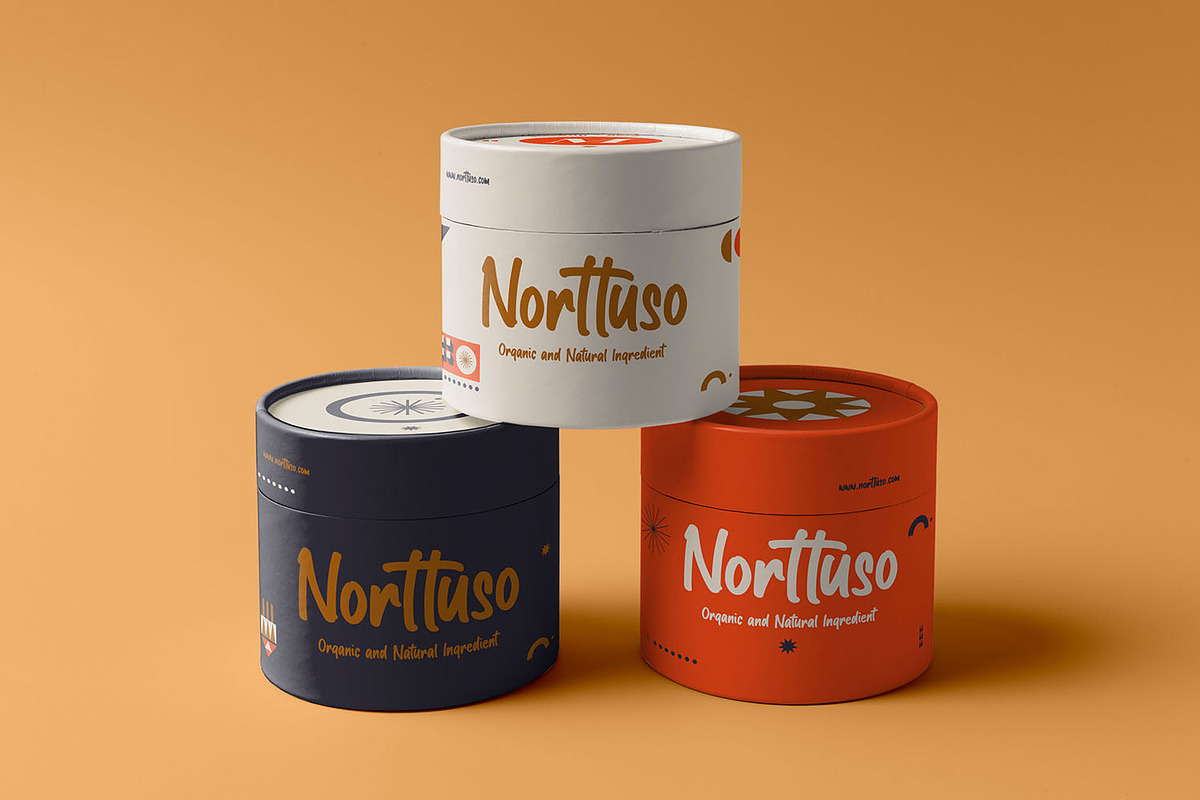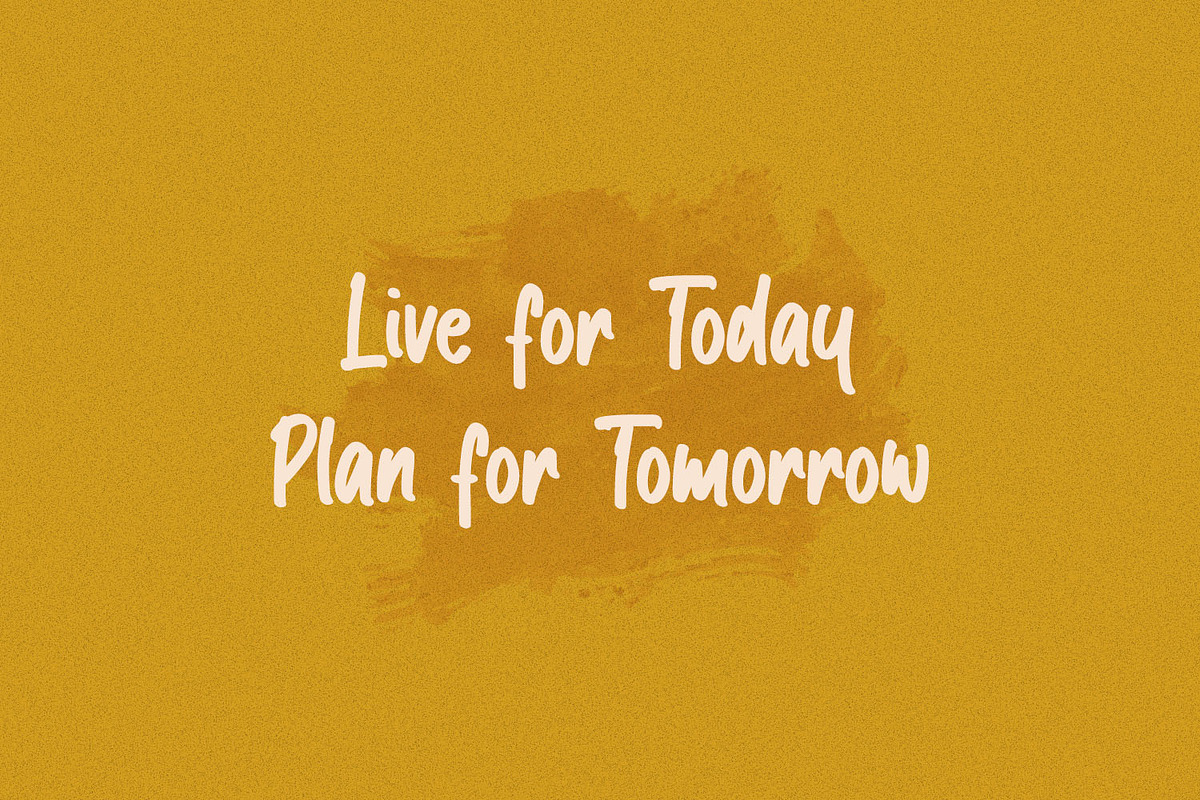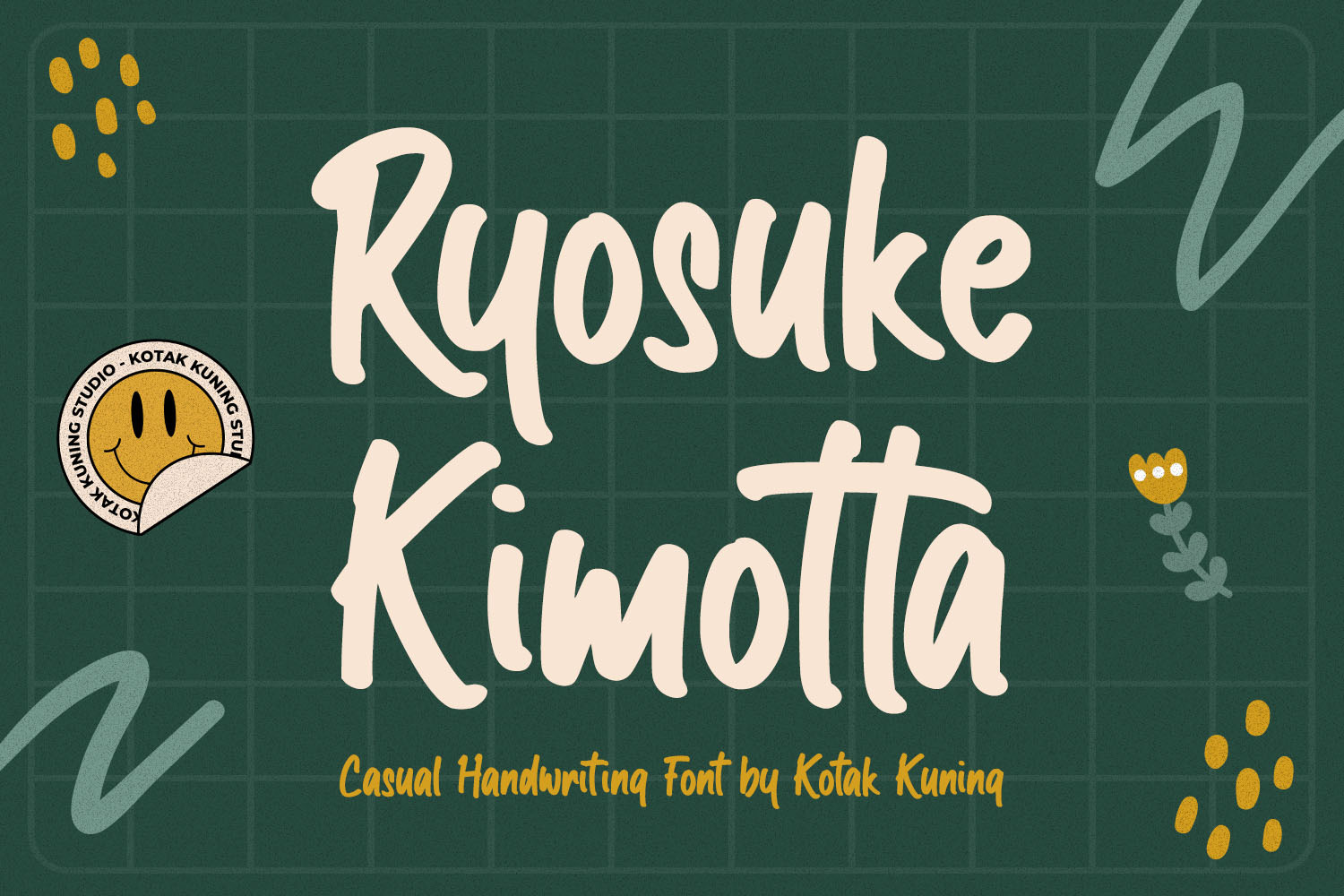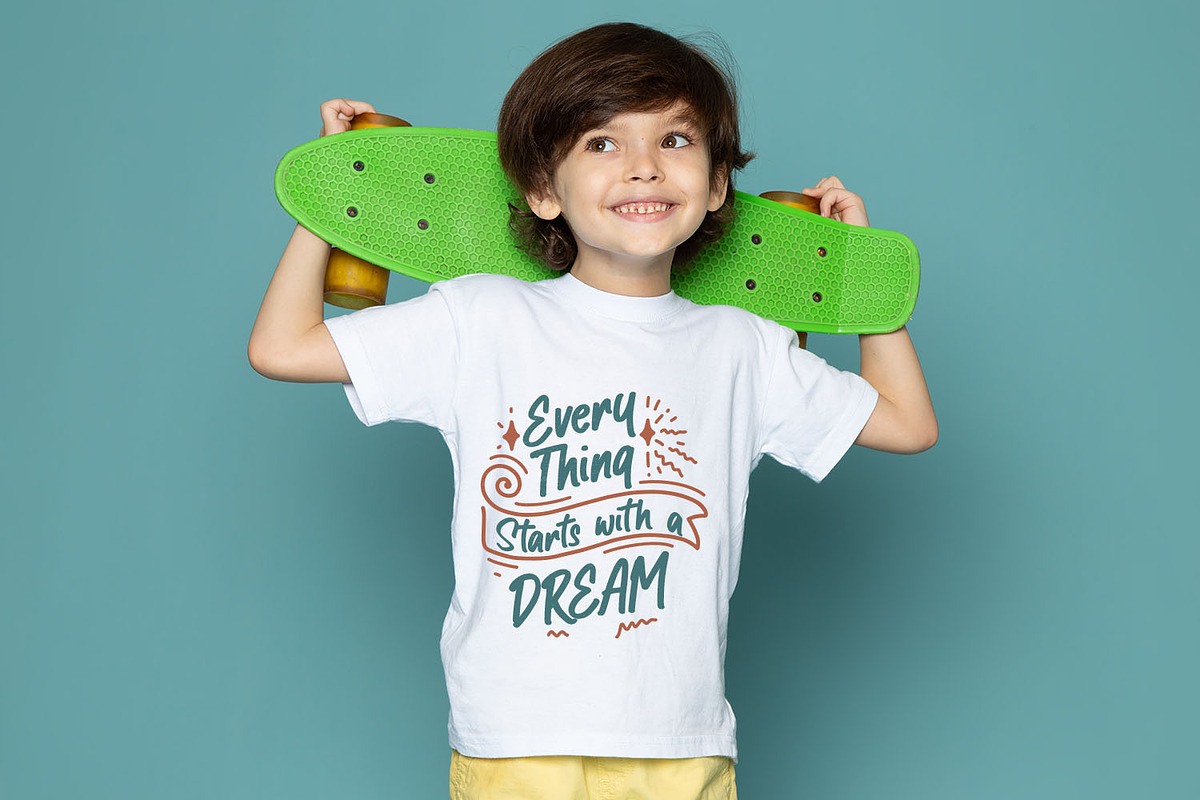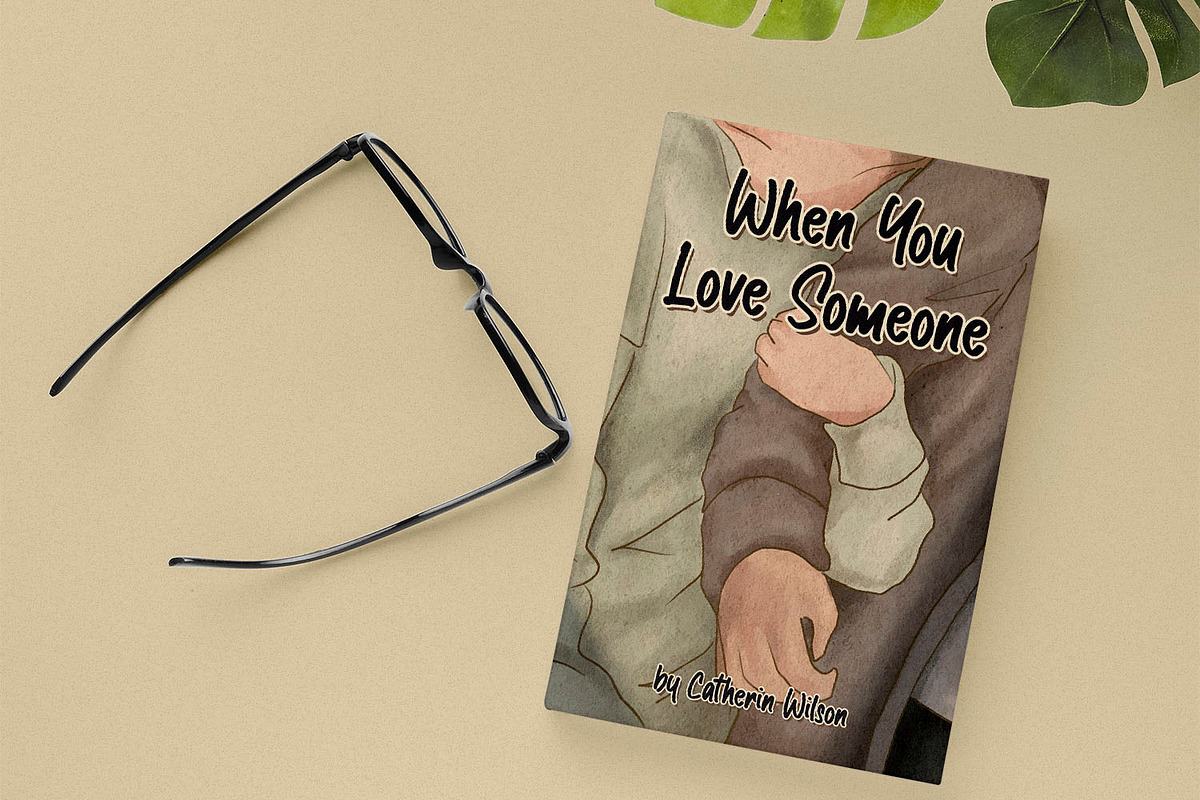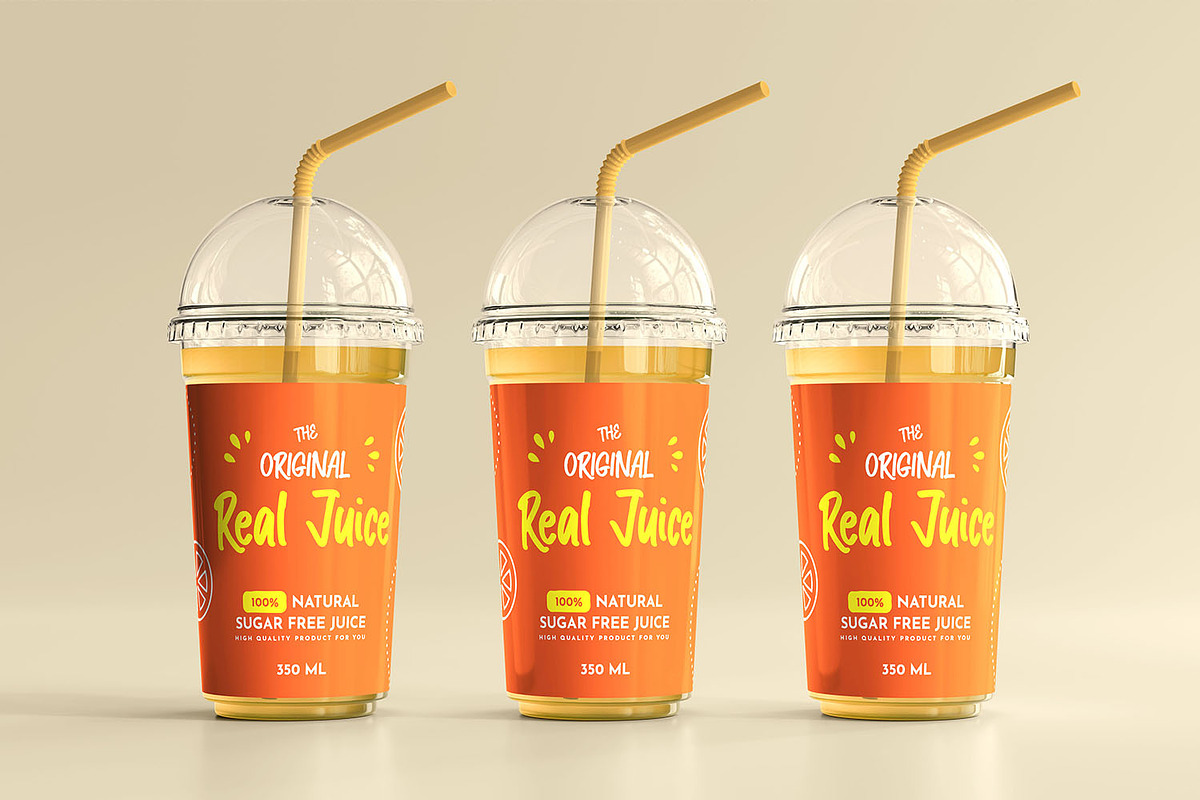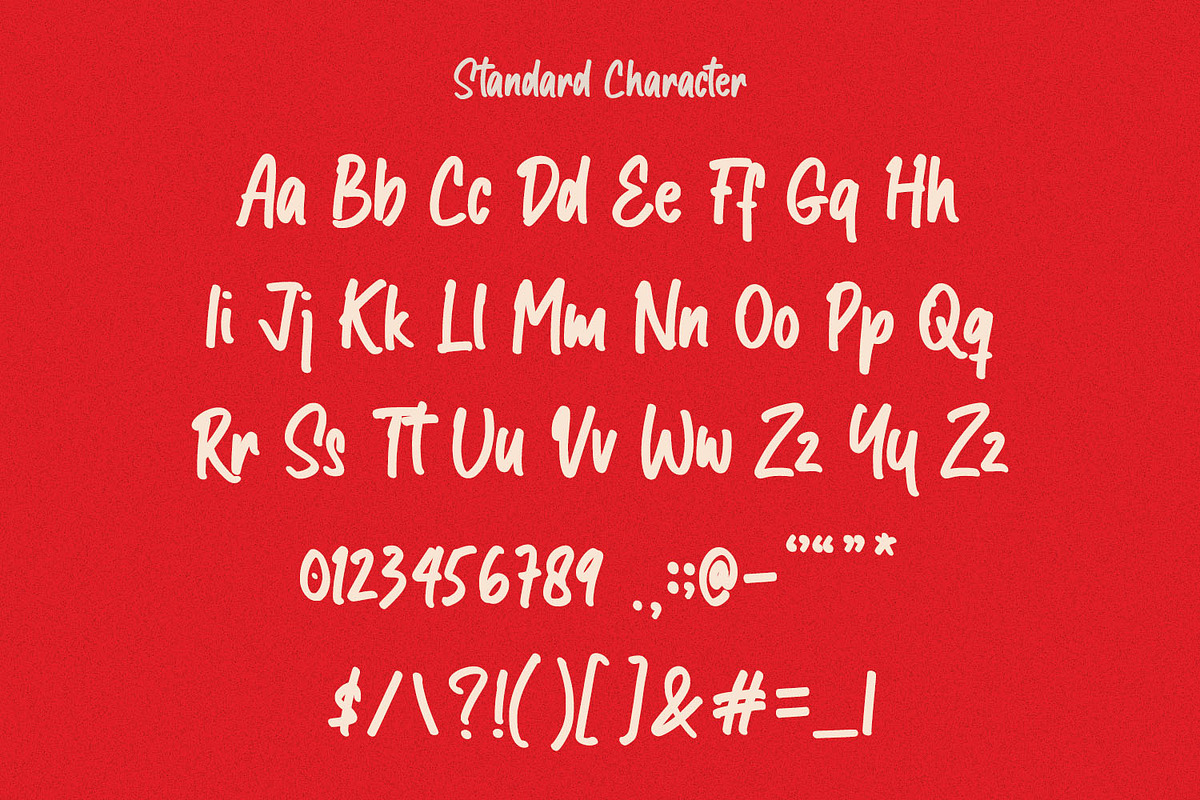
Ryosuke Kimotta Casual Display Font
A casual display font and combination with Hand Lettering style gives more modern touch and makes the font looks being customized.
This font is suitable to use as a logotype, product designs, label, watermark, social media posts, apparel, invitation, signboard, sports club, motor/car, special events, or anything that need handwriting taste.